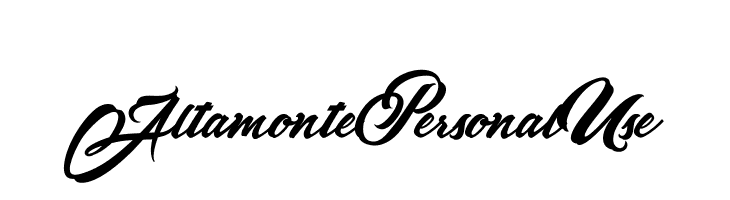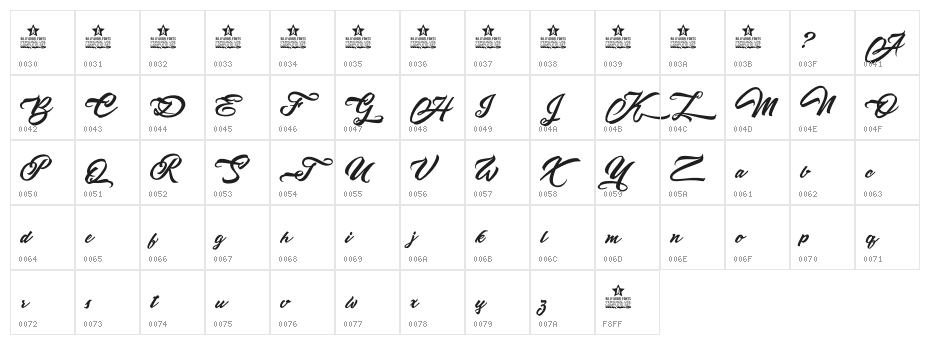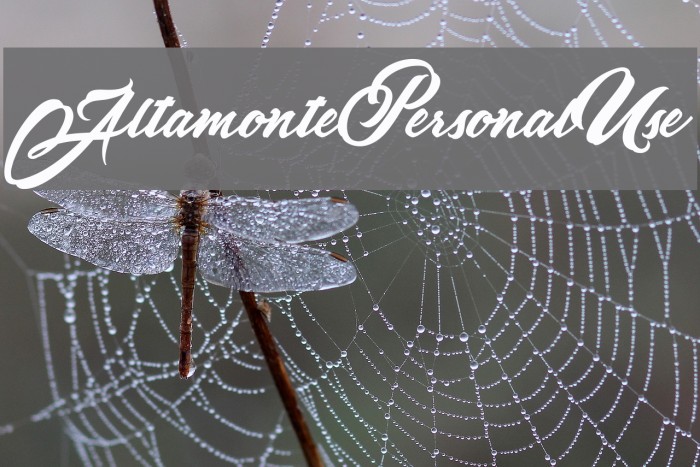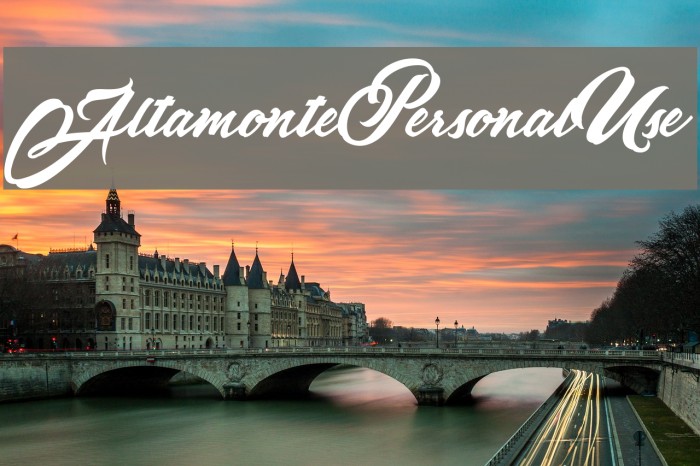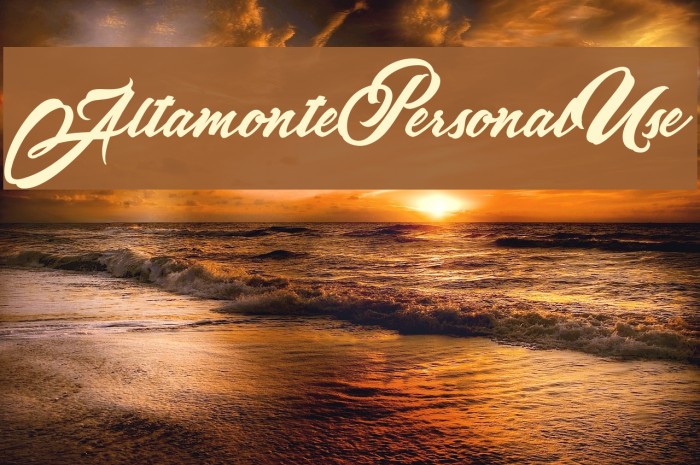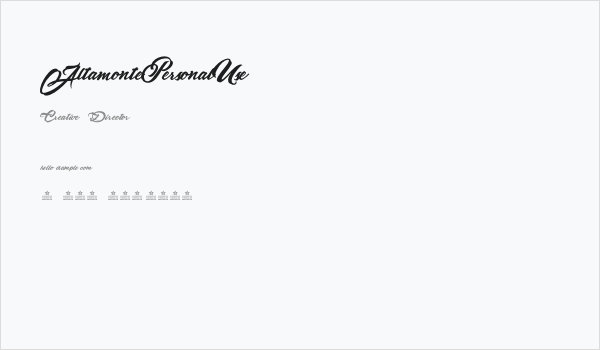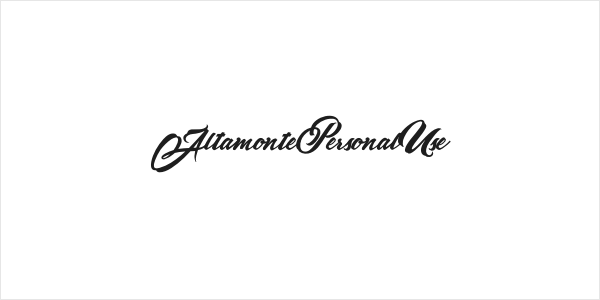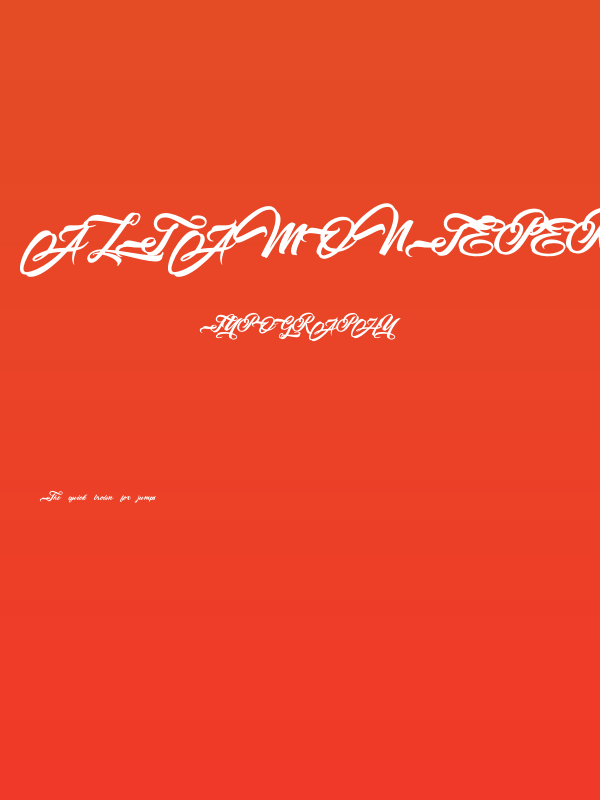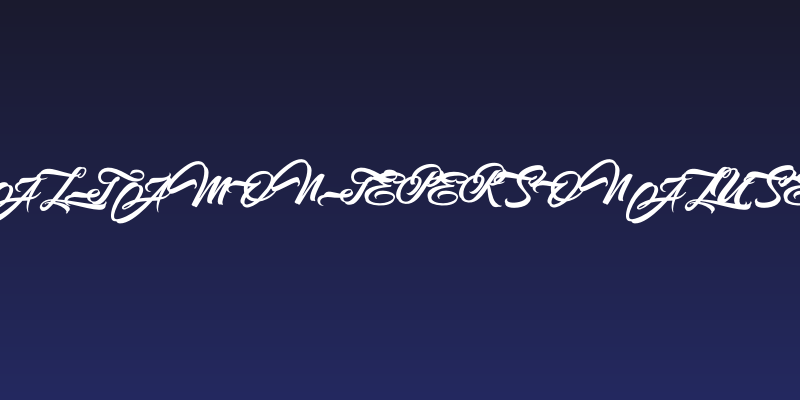
AltamontePersonalUse Font
AltamontePersonalUse Description
This font features an elegant and flowing script style, characterized by its ornate and decorative letterforms. The uppercase letters are particularly elaborate, with intricate swirls and flourishes that give the font a sophisticated and artistic appearance. The lowercase letters maintain a cohesive style, with smooth, connected strokes that enhance the overall fluidity. This font exudes a sense of classic elegance and is well-suited for formal and decorative applications. The numerals and special characters are designed to match the ornate style of the alphabet, ensuring a consistent look across all text elements.
| Proposed Projects | Ideal for wedding invitations, elegant branding, decorative signage, and artistic projects. |